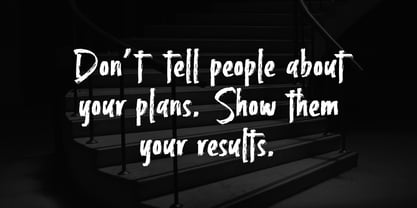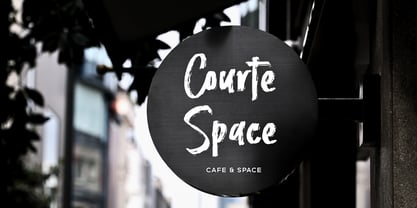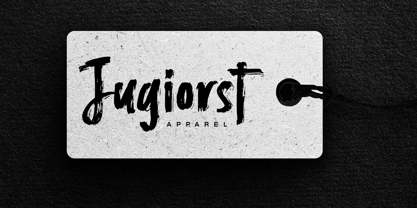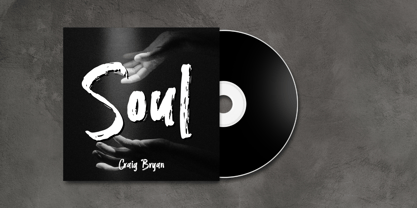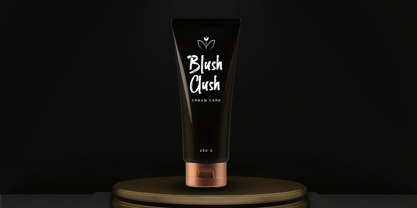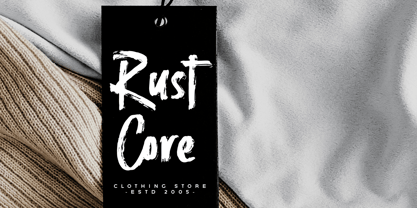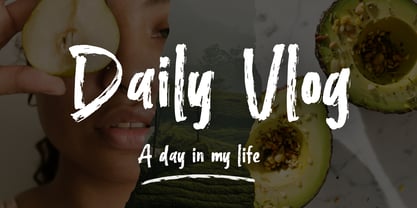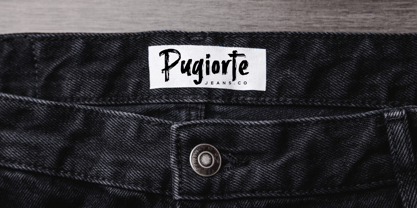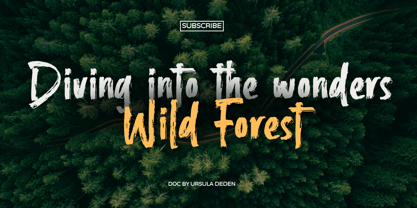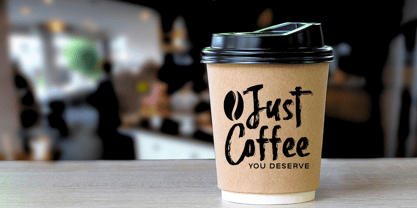
Crustystoned
by Fikryal
The Crustystoned Font Family was designed by Muhammad Fikry and published by Fikryal. Crustystoned contains 1 styles. More about this family
Crustystoned is a bold and expressive brush handwritten font that captures the raw energy of hand-painted strokes. Perfectly imperfect, this font brings a handcrafted vibe that’s ideal for:
• Product branding like perfume, skincare, fashion labels, and packaging
• YouTube thumbnails that need to stand out with bold, attention-grabbing text
• Posters, logos, social media graphics, handwritten quotes, and more
With its dynamic and organic style, Crustystoned is especially perfect for product-focused designs, giving your brand a personal and artistic feel that connects with modern consumers. Whether you’re designing for physical goods or digital content, Crustystoned will elevate your visual presentation.